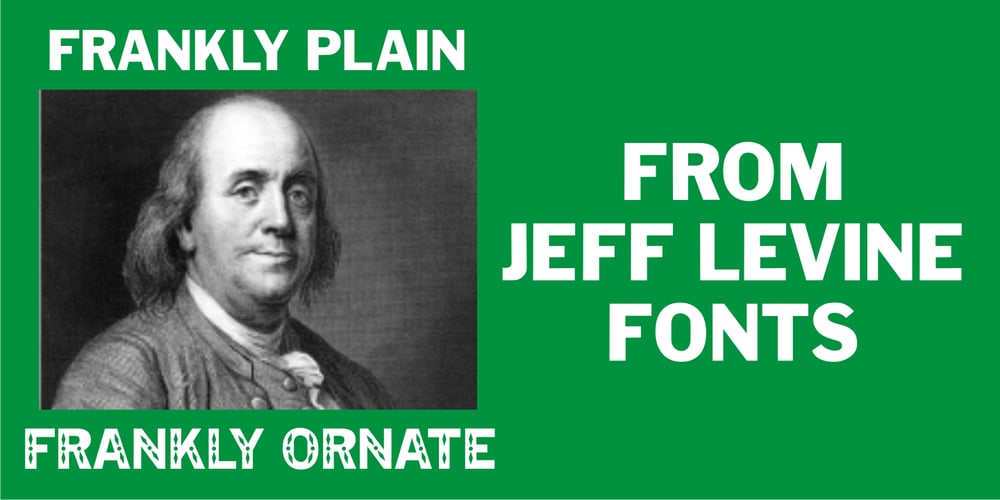
Frankly JNL Font Family was designed by Jeff Levine and published by Jeff Levine. Frankly JNL contains 2 styles and family package options. Frankly Plain JNL is an all-caps version of the ever-popular Franklin Gothic, while Frankly Ornate JNL adds a decorative embellishment to the letters and numbers.